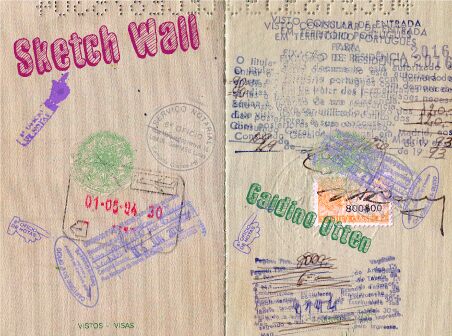
Sketch Wall by Galdino Otten Fonts is a free comic-style 3D display font with a lively hand-drawn finish. Broad, uneven letters combine striped interior shading with offset dark edges, giving the forms the look of inked sketches cut from paper.
Its comic-book character suits children's entertainment, humorous posters, and casual game graphics. The lettering can also become part of packaging artwork, especially for snacks or novelty products built around doodles and illustrated mascots. In publishing, it is particularly suited to playful cover lines and section openers that borrow the rough marks of a cartoonist's sketchbook.